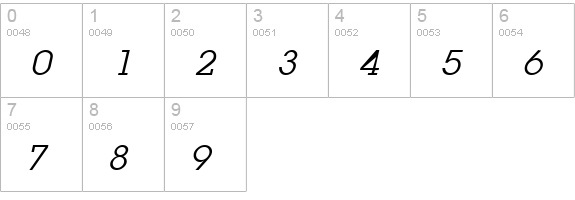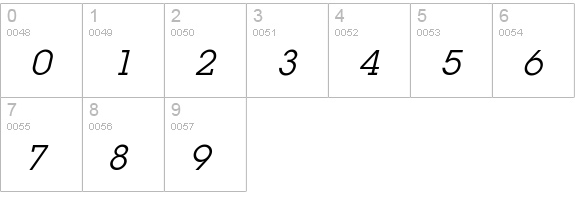
Lapland Italic is a distinctive, italic variant in the Lapland typeface family \xE2\x80\x94 well suited to design and typography projects.
Introducing Lapland Italic, a sensational font that effortlessly captures the enchanting beauty of the winter wonderland. With its gracefully slanted letters and delicate curves, this font exudes a sense of elegance and sophistication, making it the perfect choice for any project that requires a touch of finesse. Created with meticulous attention to detail, Lapland Italic embraces a unique blend of modernity and tradition. Its smooth and flowing lines evoke a sense of movement, resembling the graceful dance of snowflakes in the crisp Lapland air. Each letter is meticulously crafted, creating a harmonious balance between legibility and artistic flair. This font is not only visually stunning but also incredibly versatile. Whether you're designing a holiday card, creating a logo for a winter-themed event, or crafting a captivating headline for a magazine, Lapland Italic will effortlessly elevate your design to new heights. But what sets Lapland Italic apart is its accessibility. We understand the importance of providing free resources to the creative community, which is why Lapland Italic is freely available to download at FontsMarket.com. Now, you can add a touch of Lapland's magical allure to your projects without breaking the bank. So, dive into the beauty of Lapland Italic and let your imagination run wild. With its captivating charm and undeniable elegance, this font is sure to breathe life into your designs and leave a lasting impression on your audience. Let Lapland Italic be your creative companion, guiding you through the mesmerizing winter landscape and infusing your work with a touch of magic.